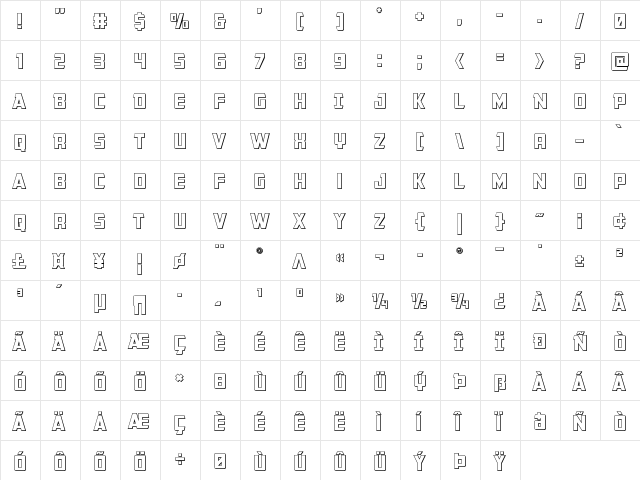
Buchanan Outline Outline
Design Context for Buchanan Outline Typeface
Buchanan Outline is built around its visual character rather than neutral utility — its distinctive forms are designed to make an impression at display sizes.
Font Pairing: Pair with a clean neutral sans-serif for body copy to let Buchanan Outline's character lead without overwhelming the composition.
Pro Tip: Use Buchanan Outline exclusively at display sizes — it was designed to be seen, not read at length. Let a neutral companion handle body copy.